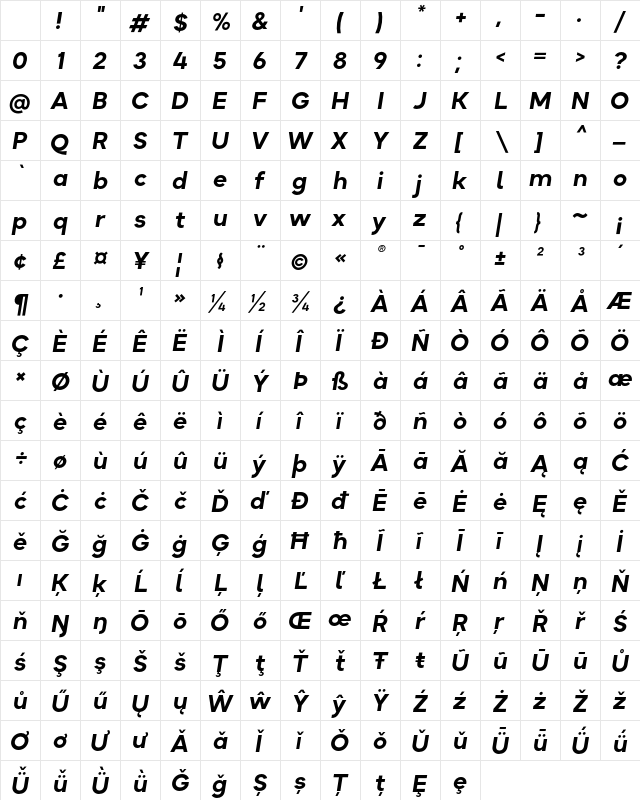
Complete Okta Bold Italic glyph index. Displaying only characters natively supported by Okta Bold Italic font.
Okta is a composed and adaptable typeface that performs quietly and consistently across a wide range of design contexts. The slanted form adds forward momentum and visual energy. Its bold stroke weight gives it real presence on the page.
Pro Tip: Use Okta for emphasis, pull quotes, and subheadings where its slanted energy can add rhythm to the layout.